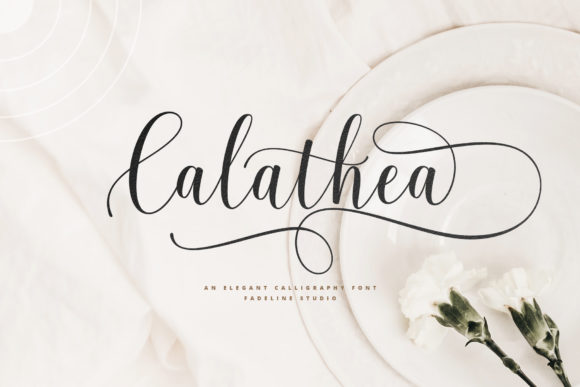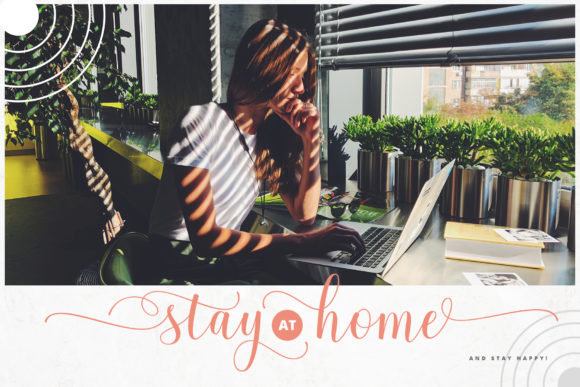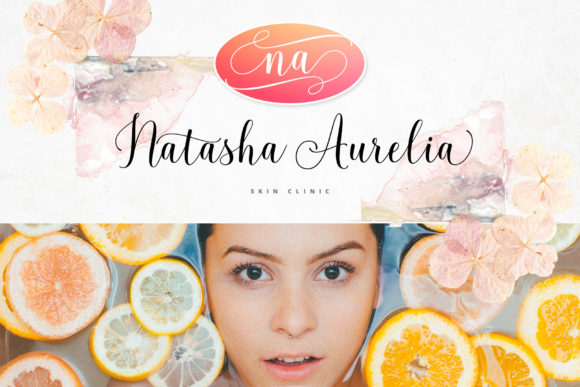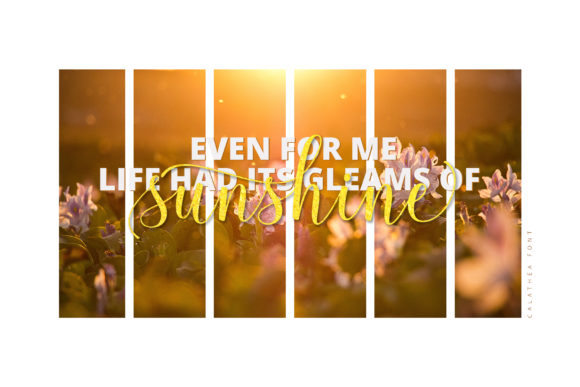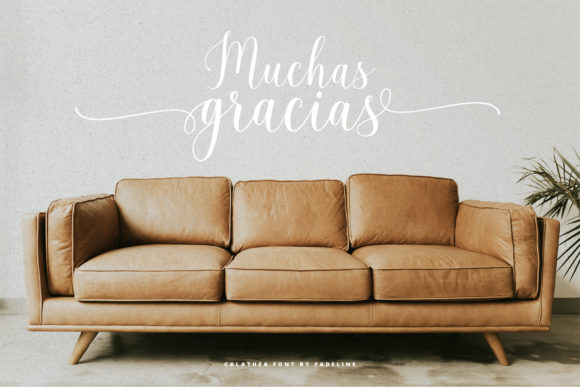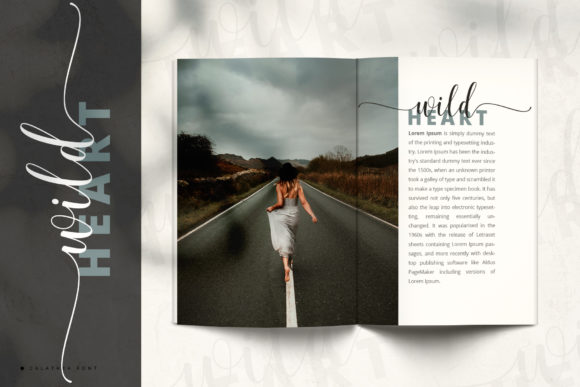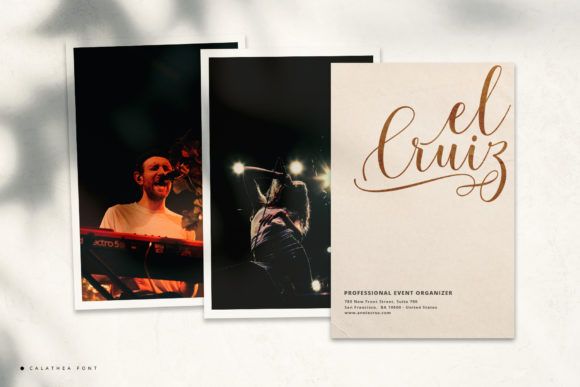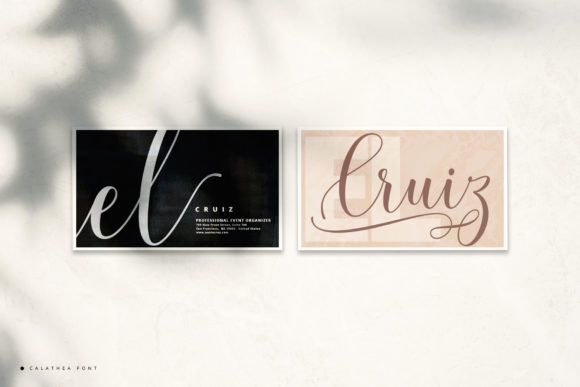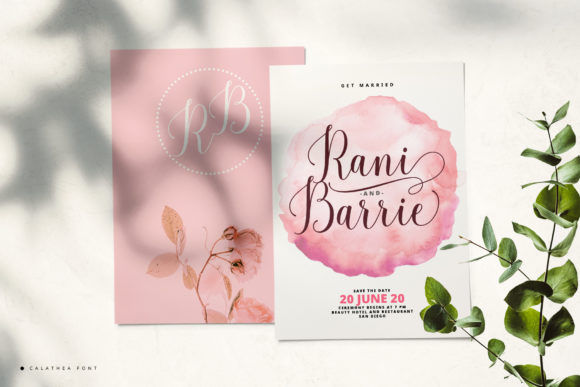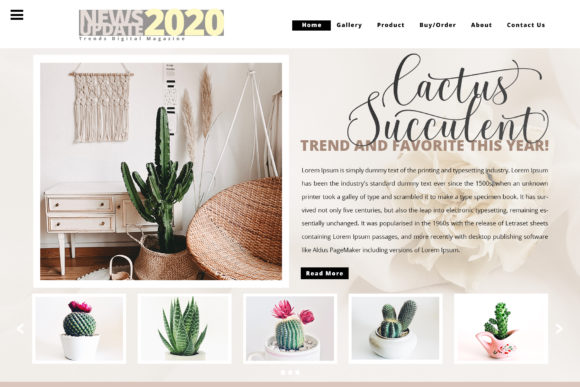
Calathea Font
About Calathea Font
Calathea is an elegant script font. It features gorgeous swashes and ligatures that make this script incredibly versatile.
This versatility means that this font can be used in a wide variety of applications from book covers, to greeting cards- the only limit is your imagination!